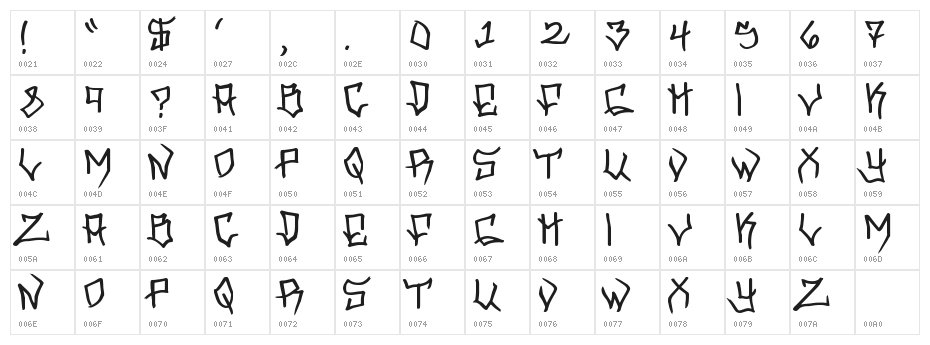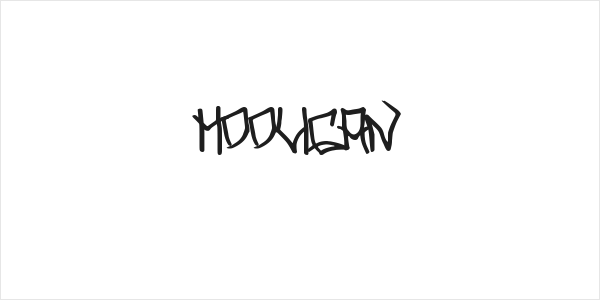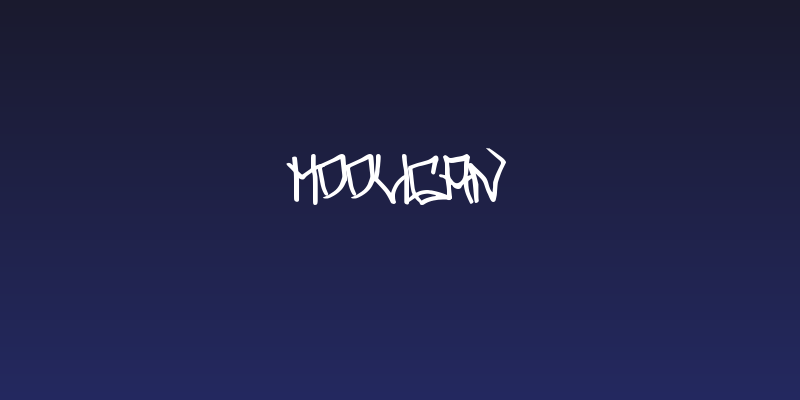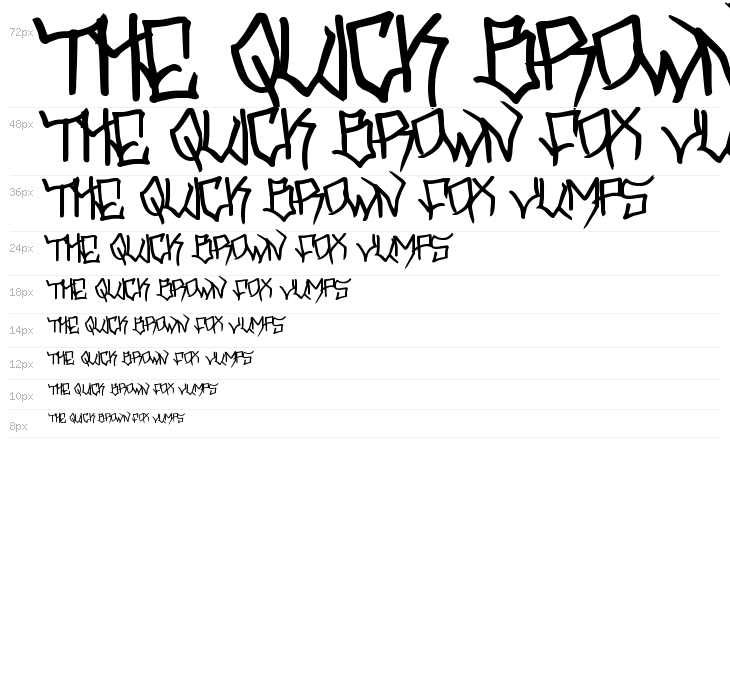
Hooligan Font
Hooligan Description
This font features a bold, graffiti-inspired style with angular, sharp edges and a dynamic, rebellious flair. The characters are highly stylized, with a hand-drawn appearance that suggests movement and energy. Each letter is unique, with varying line thicknesses that add to the font's edgy and urban aesthetic. The uppercase and lowercase letters maintain a consistent style, while the numbers and special characters integrate seamlessly into the overall design. This font is perfect for projects that require a bold statement and a touch of street art influence.
| Overall Style | Urban, Edgy, Graffiti |
| Proposed Projects | Ideal for street art designs, music album covers, urban-themed posters, and edgy branding projects. |